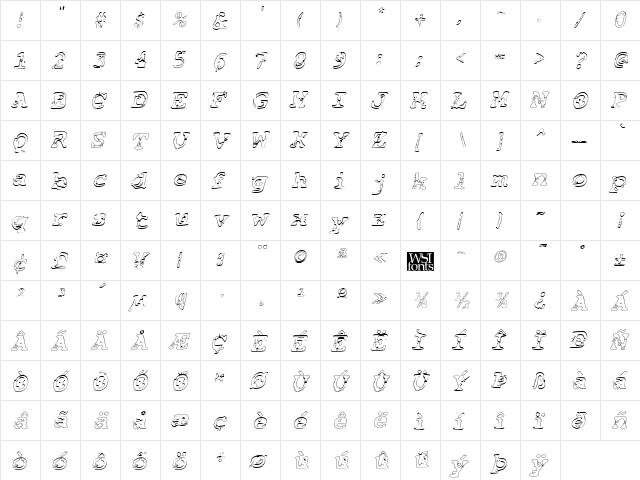
BasicGrungeHollow Italic
Design Context for BasicGrungeHollow Typeface
BasicGrungeHollow trades polish for personality, using distressed and eroded forms to bring grit and attitude to creative work. The slanted form adds forward momentum and visual energy.
A strong fit for alternative music projects, graffiti-adjacent design, and anything that deliberately resists polish.
Pro Tip: Use BasicGrungeHollow at larger sizes where the texture and irregularity of each letterform can be clearly seen — it loses its character at small sizes.